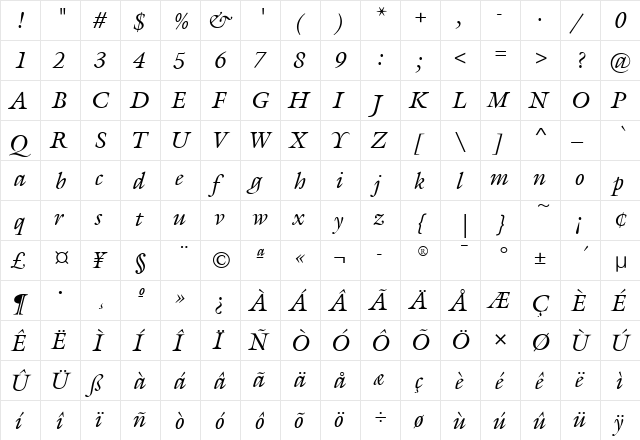
GalliardITC Italic
Design Context for GalliardITC Typeface
GalliardITC takes a measured approach to typography — its balanced proportions and neutral character make it a reliable workhorse for both digital and print work. The slanted form adds forward momentum and visual energy.
Pro Tip: Try GalliardITC for annotation and caption copy alongside an upright companion — the contrast in angle creates a dynamic but ordered typographic system.